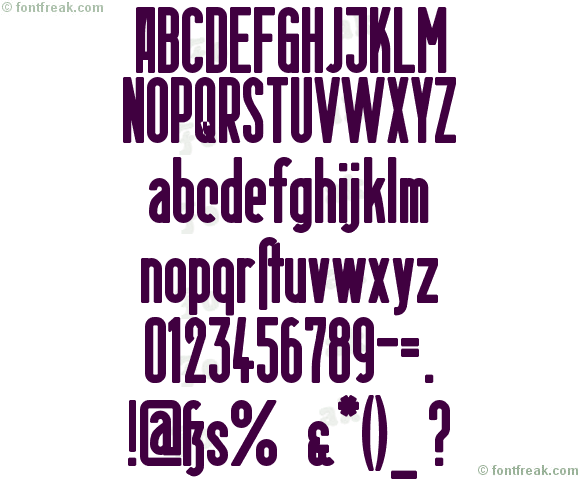
About Berlin Email
Berlin Email, designed by Peter Wiegel, is a striking display font that falls under the category of sans-serif. Its heavy weight and robust structure give it a commanding presence, making it an excellent choice for a variety of design projects. The font features a balanced stroke weight, providing a sense of stability and strength. Its wide spacing contributes to readability, while the semibold and bold variants enhance its versatility. The design is clean and modern, with a minimalist aesthetic that allows for effective communication without unnecessary embellishments.
Author Peter Wiegel